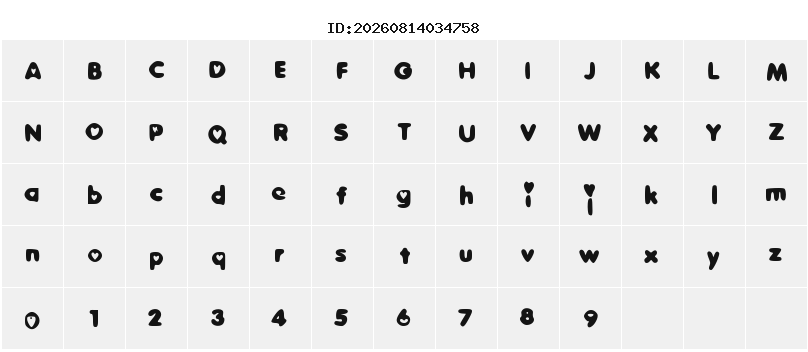
SweetLove Preview
• Font Name: SweetLove
• Full Font Name: SweetLove
• PostScript Name: SweetLove
About SweetLove.ttf
SweetLove.ttf is a modern, elegant sans-serif font designed for ultimate readability and visual harmony. Perfect for branding, headlines, web design, and print materials.